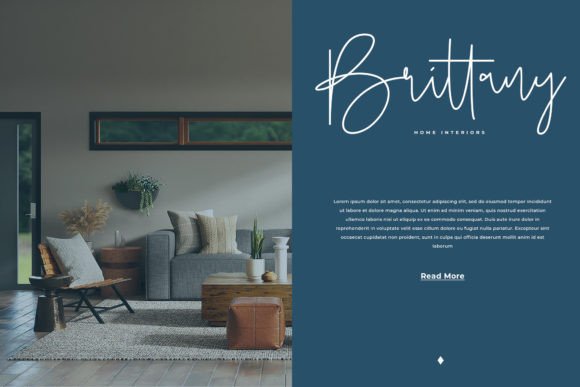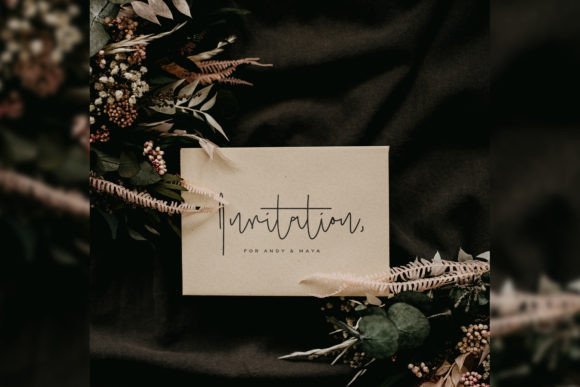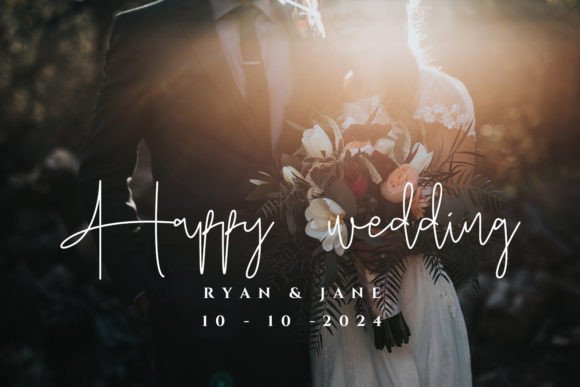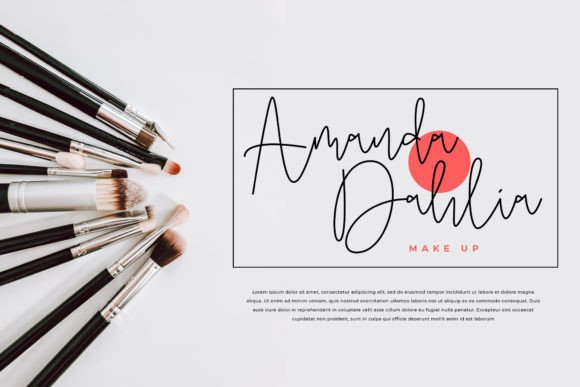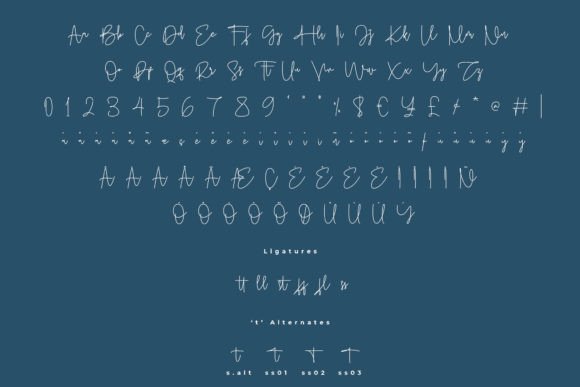
Introducing Amontiny Signature Font: A Sweet and Delicate Script Font
Are you a designer or crafter looking for a unique and versatile font to elevate your creative projects? Look no further than Amontiny Signature Font, a sweet and delicate script font that is sure to capture your imagination. With its natural and distinctive style, Amontiny Signature is an incredibly fitting choice for a wide range of designs, from elegant wedding invitations to playful brand logos.
The Beauty of Amontiny Signature Font
Amontiny Signature Font boasts a beautiful, hand-crafted design that exudes a sense of elegance and sophistication. Its delicate lines and curves create a soft, romantic feel that is perfect for designs that require a touch of whimsy and charm. The font’s unique style is characterized by its flowing connections and subtle imperfections, giving it a warm and organic feel that is sure to resonate with your audience.
The versatility of Amontiny Signature Font is one of its most striking features. With its natural and unique style, this font can be used in a wide range of designs, from:
- Elegant wedding invitations and stationery
- Playful brand logos and marketing materials
- Delicate packaging and product labels
- Beautiful journals and planners
- Stunning wall art and quotes
As you can see, the only limit to what you can create with Amontiny Signature Font is your imagination! Whether you’re a seasoned designer or a crafty DIY enthusiast, this font is sure to inspire you to create something truly special.
Key Features of Amontiny Signature Font
So, what makes Amontiny Signature Font so special? Here are just a few of its key features:
- Unique and hand-crafted design: Each letter has been carefully crafted to create a distinctive and elegant feel
- Delicate lines and curves: Soft, romantic lines and curves give the font a warm and organic feel
- Flowing connections: The font’s connections create a sense of movement and fluidity
- Subtle imperfections: The font’s subtle imperfections add to its warm and organic feel
- Highly versatile: Suitable for a wide range of designs and projects
Tips for Using Amontiny Signature Font
To get the most out of Amontiny Signature Font, here are a few tips to keep in mind:
- Use it as a headline font: Amontiny Signature Font is perfect for headlines and titles, where its unique style can really shine
- Pair it with a sans-serif font: For body text, try pairing Amontiny Signature Font with a clean sans-serif font to create a beautiful contrast
- Experiment with colors and textures: Amontiny Signature Font looks great in a range of colors and textures, so don’t be afraid to get creative
In conclusion, Amontiny Signature Font is a sweet and delicate script font that is sure to capture your imagination. With its natural and unique style, this font is incredibly versatile and can be used in a wide range of designs and projects. Whether you’re a designer, crafter, or DIY enthusiast, Amontiny Signature Font is a must-have addition to your font collection. So why wait? Download Amontiny Signature Font today and start creating something truly special!